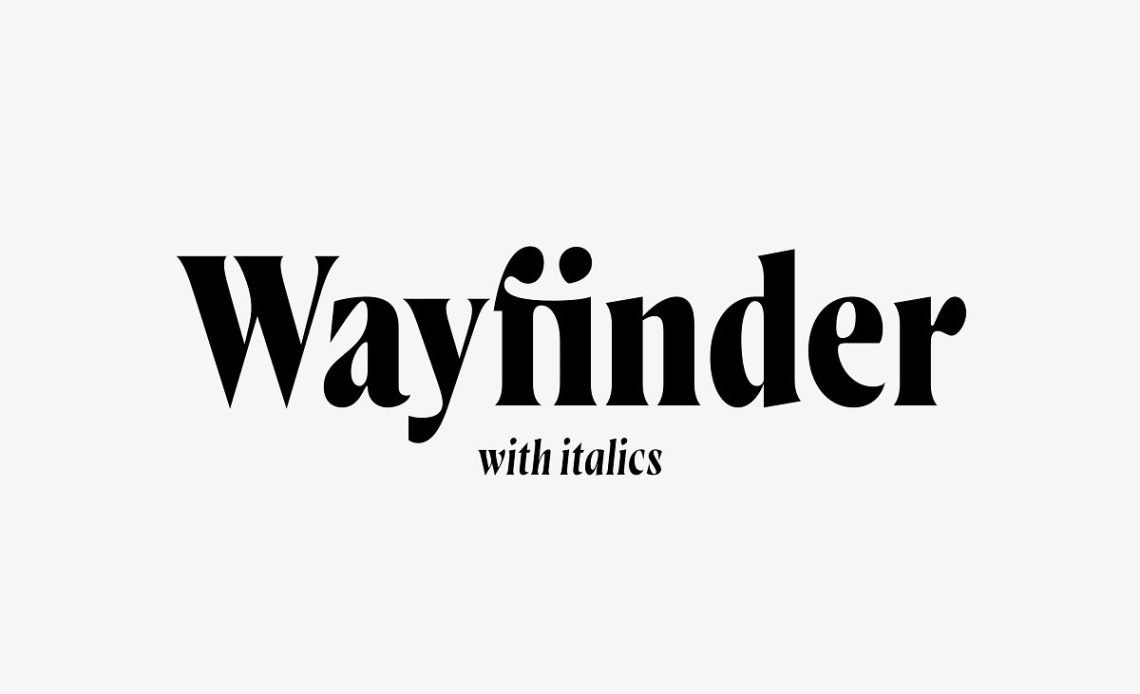
Introducing Wayfinder CF, the warm vintage serif font designed by the talented Connary Fagen. Are you searching for the perfect font for your flat design website? Look no further than Wayfinder CF! This display font family is the ideal choice for logos, headlines, titles, and other short texts that need to convey both elegance and urgency.
Wayfinder CF comes in seven weights, ranging from an airy thin to a brilliant heavyweight, so you can choose the perfect weight for your design needs. Plus, it includes both Roman and Italic sets, giving you even more design options. And with its Latin-script multilingual support, you can use Wayfinder CF for projects all over the world.
But that's not all. Wayfinder CF also includes OpenType features such as alternates, swashes, and ligatures, which give your designs a unique and creative touch. And with free updates and feature additions, you can rest assured that your font will always be up-to-date.
So why should you choose Wayfinder CF? Because it's more than just a font – it's a statement. Wayfinder CF is warm, intense, and captivating, with a vintage feel that adds character to any design. It's the perfect choice for anyone who wants to make a lasting impression.